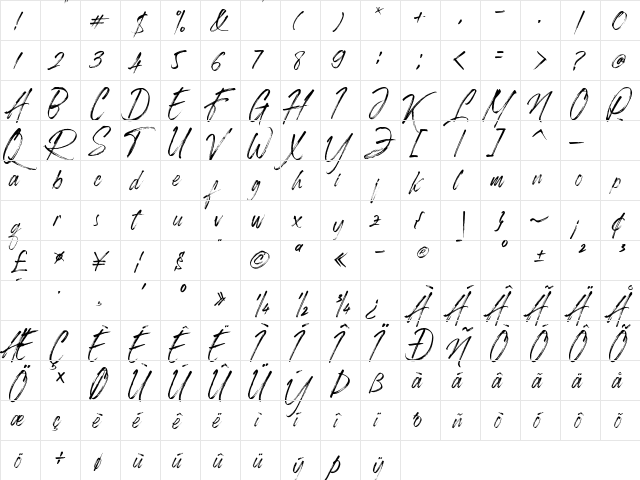
Roughmarker Regular
| Designer | Muhammad Ridha Agusni |
Design Context for Roughmarker Typeface
Roughmarker trades polish for personality, using distressed and eroded forms to bring grit and attitude to creative work.
A strong fit for alternative music projects, graffiti-adjacent design, and anything that deliberately resists polish.
Pro Tip: Use Roughmarker at larger sizes where the texture and irregularity of each letterform can be clearly seen — it loses its character at small sizes.